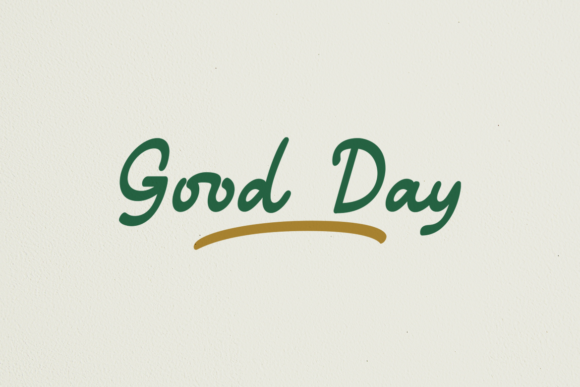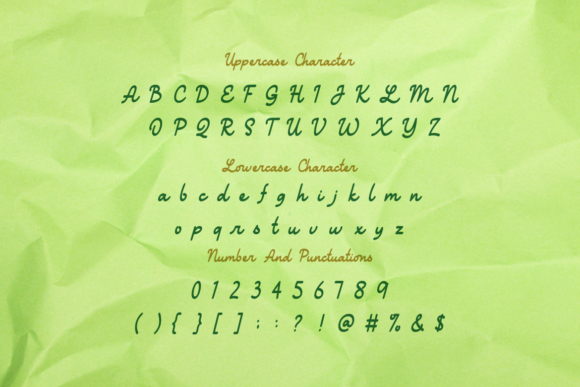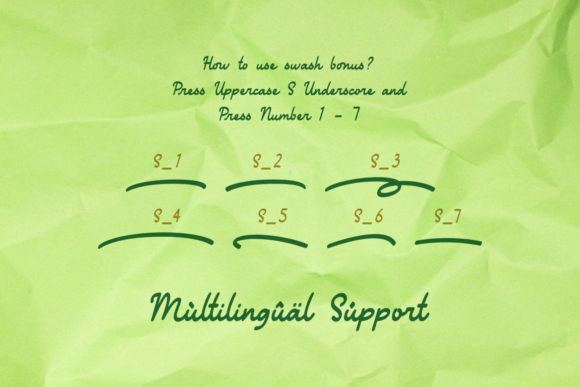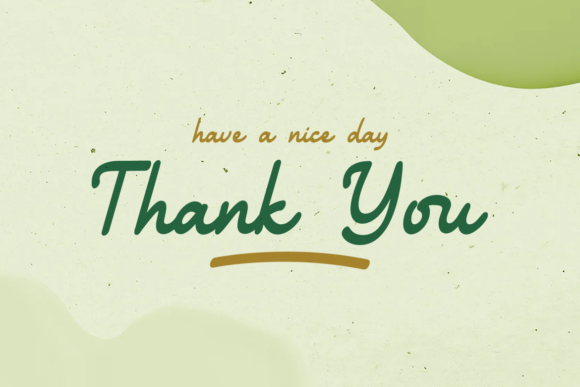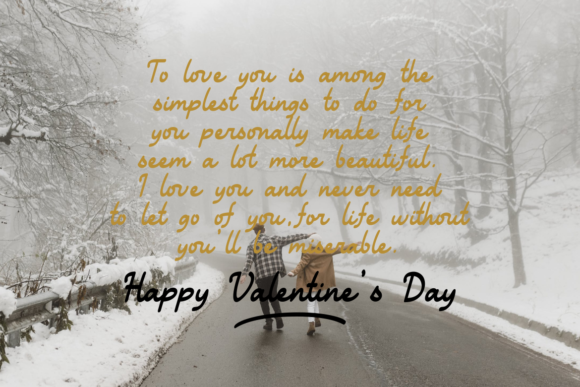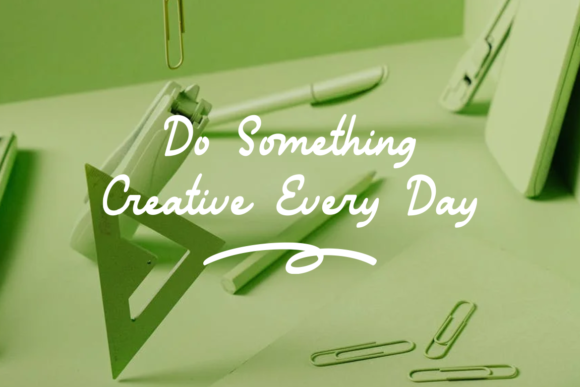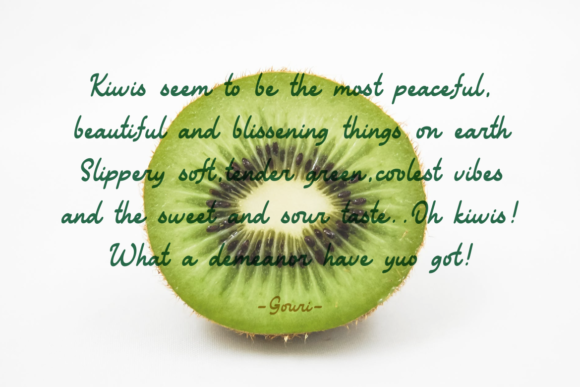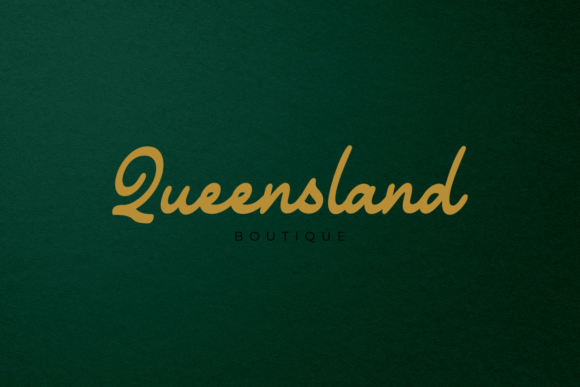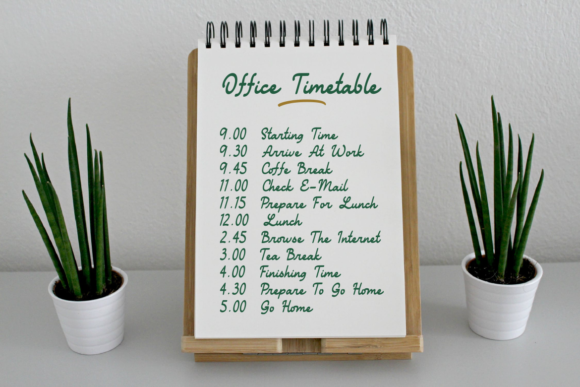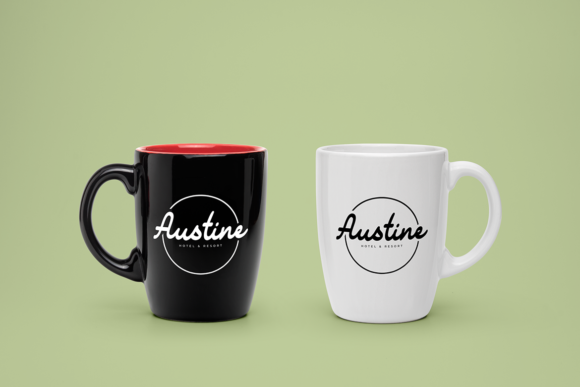
Good Day Script Font
About Good Day Script Font
Good Day Script is a beautiful script font. It is suitable for all your design project needs such as: logo design, branding, covers, posters, magazines, wedding invitations, greeting cards, quotes and more.